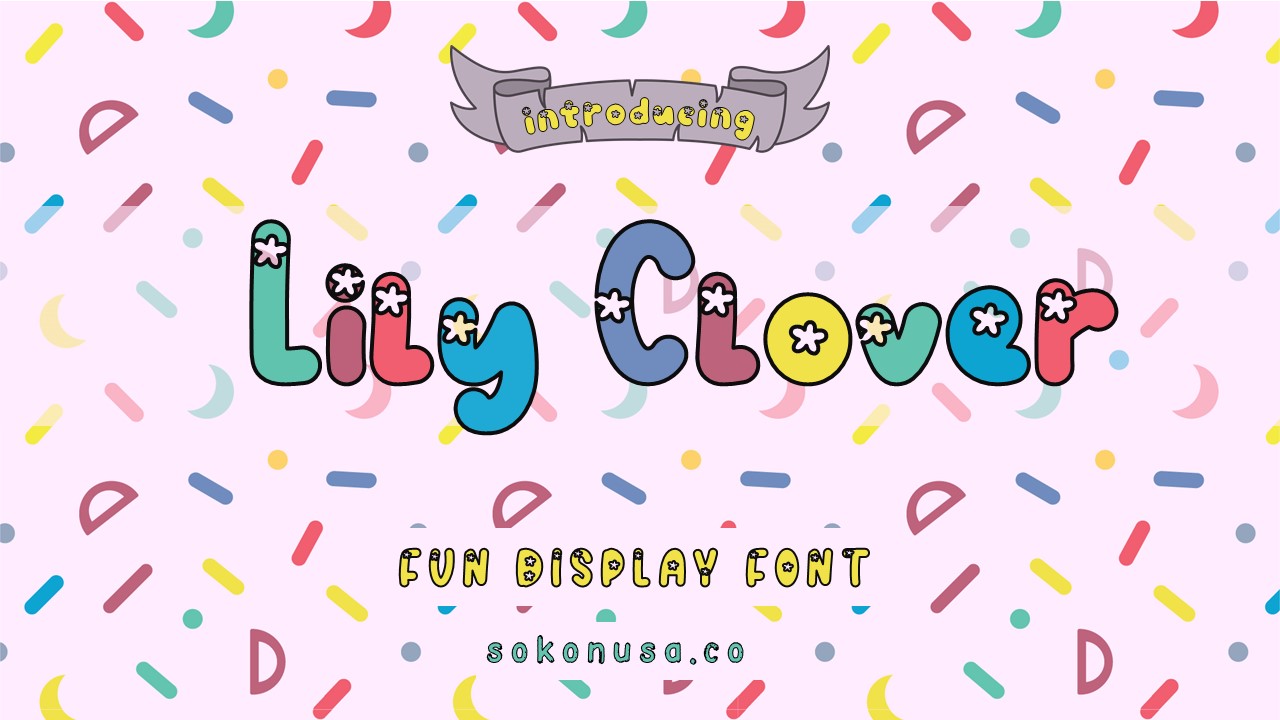
Lily Clover Font
Designed by sokonusa
About Lily Clover
Lily Clover is a cheerful font with a letter style a floral pattern and is suitable use for :
1. Children's books,
2. wall hangings,
3. Design Mugs
4. Birthday invitationfor children's.
You can adapt to the project you makee with the theme of children and fun.